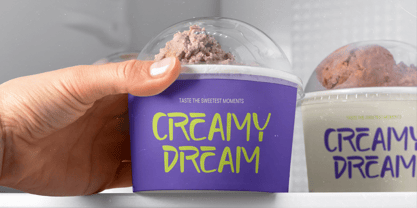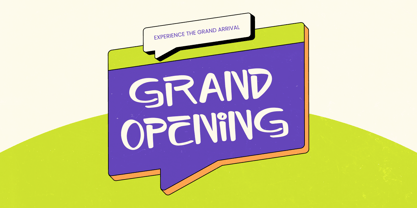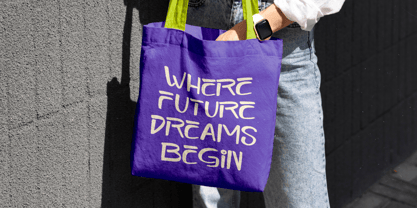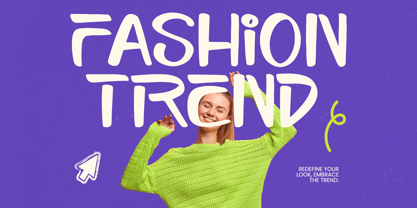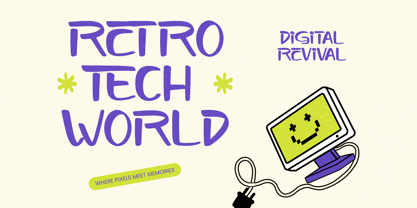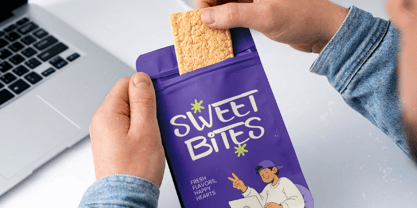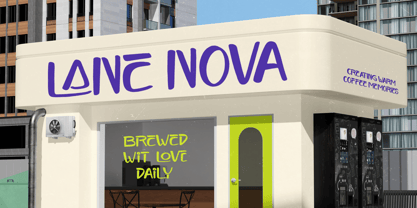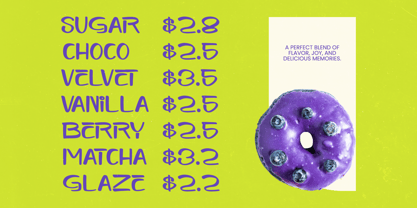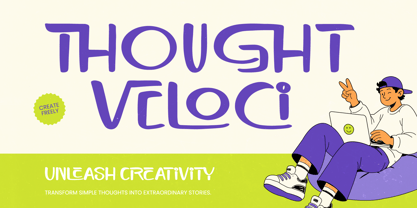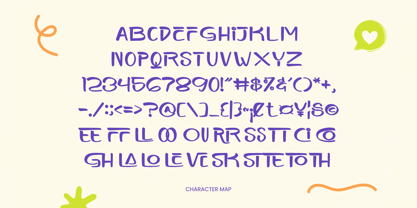
Thought Veloci
The Thought Veloci Font Family was designed by Heru Utama Putra and published by Stylishtype Studio. Thought Veloci contains 2 styles and family package options. More about this family
Elevate your creative projects with a touch of authentic human energy using Thought Veloci - Handwritten Sans Serif. This contemporary sans serif blends the casual charm of hand-lettering with the structural integrity required for high-end professional projects. Its fluid strokes and playful letterforms evoke a sense of organic approachability, making it the perfect choice for brands looking to establish a genuine connection with their audience through authentic typography.